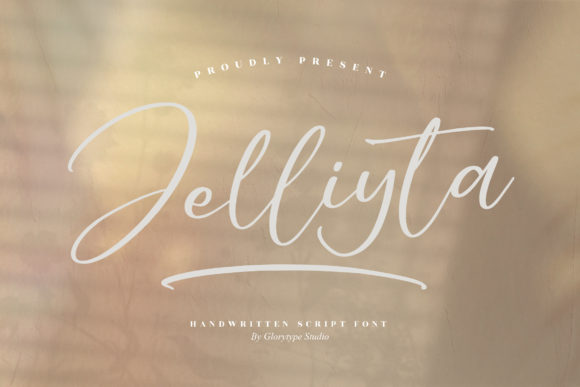
Introducing Jelliyta, the exquisite script font that will transform your creative visions into captivating masterpieces. Its elegant curves and graceful lines bring a touch of sophistication to any project, adding a personal and heartfelt aura.
With Jelliyta, you'll find endless possibilities for expression. Create logos that leave a lasting impression, branding projects that exude elegance, and homeware designs that radiate warmth and charm. Enhance your product packaging with a touch of individuality, or let your mugs, quotes, and posters speak volumes with their unique style.
Step into a world of creativity where your imagination knows no bounds. Jelliyta's versatility extends to shopping bags, t-shirts, book covers, name cards, and invitation cards, adding a touch of timeless beauty to every piece. Its delicate strokes lend an air of elegance to greeting cards and labels, making them perfect for special occasions and heartfelt messages.
Whether you're a photographer seeking to add a personal touch to your work, a designer looking to create a memorable watermark, or an event planner seeking to design stunning invitations, Jelliyta is your creative companion.
Let your projects bloom with Jelliyta's enchanting script, and watch as your ideas take on a life of their own. From logos to labels, and everything in between, this font will leave a lasting impression on your audience. It's time to unlock your creativity and let Jelliyta guide you on a journey of artistic expression.